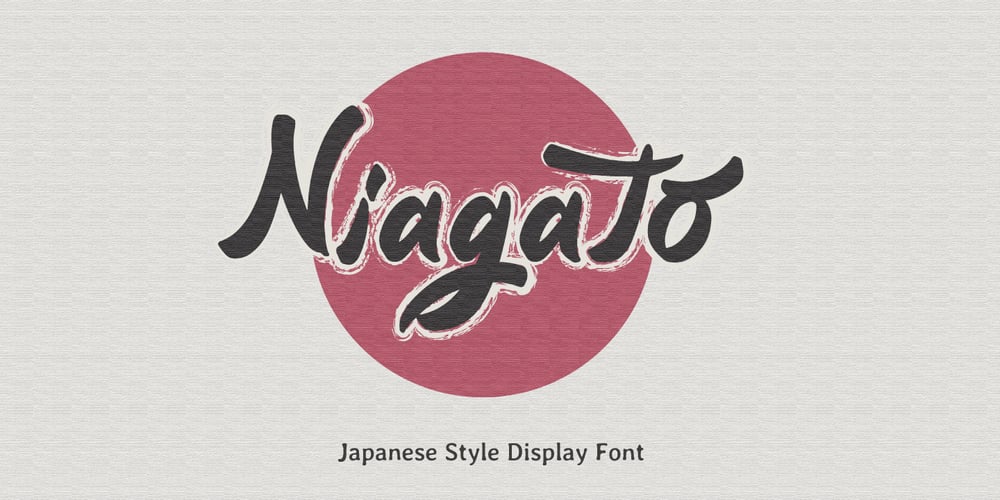
Niagato Font Family was designed by Fadli Ramadhan Iskandar and published by Attype Studio. Niagato contains 1 styles and family package options. Niagato is Font that inspired by Japanese Letter style, perfect for any Asian theme of design & promotion to create spectacular designs!Niagato is perfect for branding, logo, invitation, stationery, social media post, product packaging, merchandise, blog design, game titles, cute style design, Book/Cover Title and more.What’s Included :- Multilingual Support